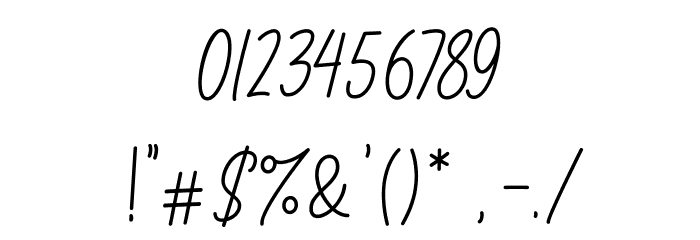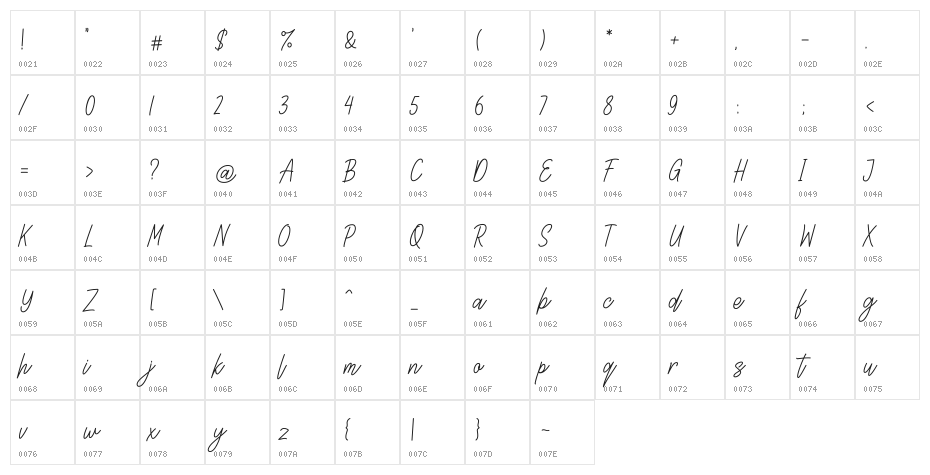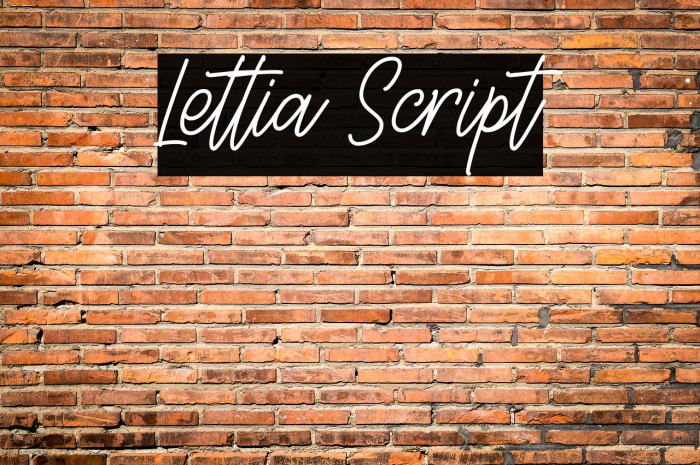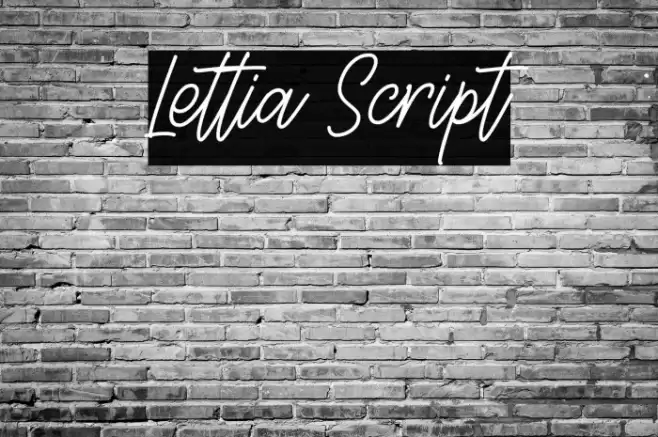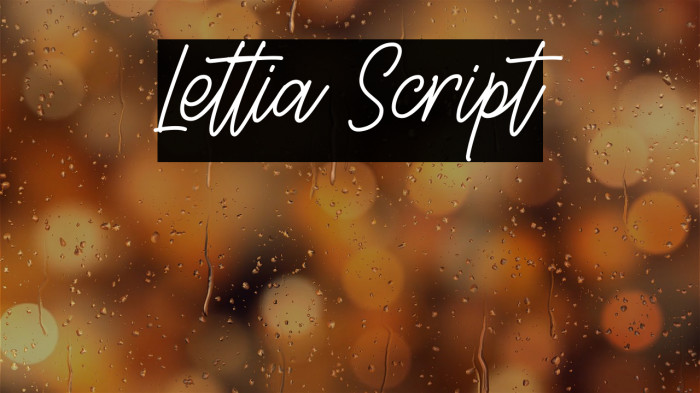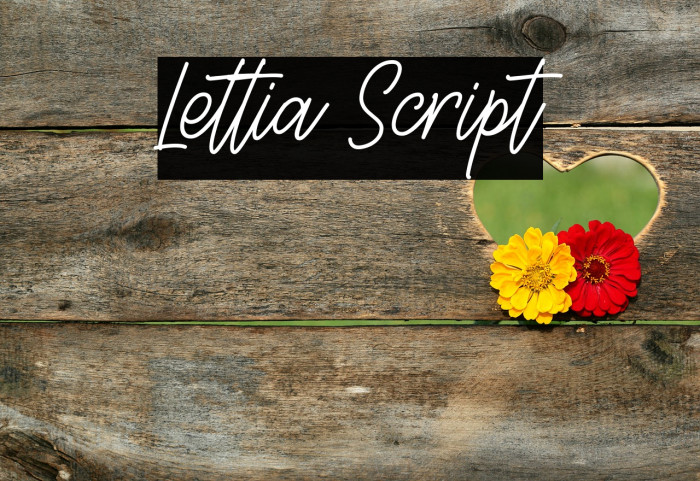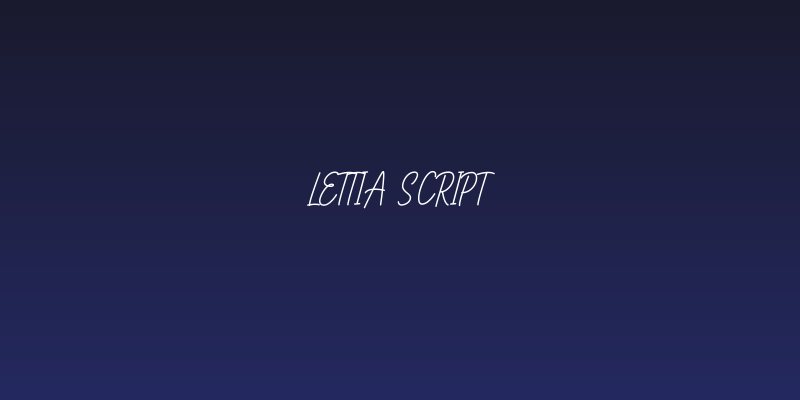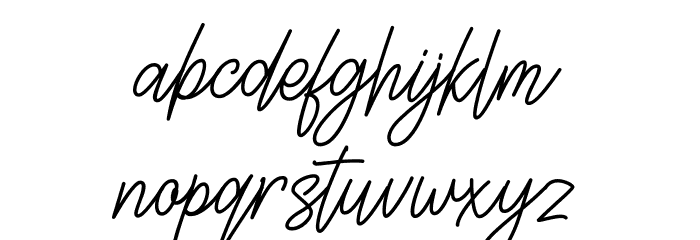
Lettia Script Font
Lettia Script Description
This font exudes a casual and elegant handwritten style, characterized by its fluid and connected letterforms. The uppercase letters are tall and slightly slanted, giving a sense of movement and grace. The lowercase letters maintain a consistent flow, enhancing readability while preserving the script's natural charm. Numbers and special characters are designed to match the overall aesthetic, providing a cohesive look across all elements. The strokes are smooth and continuous, with a medium contrast that adds to the font's legibility and appeal. This script font is versatile, suitable for a variety of design projects that require a personal and artistic touch.
| Overall Style | Elegant, Casual |
| Use Case | Logos, Invitations, Social Media |
| Proposed Projects | Ideal for wedding invitations, greeting cards, branding, and social media graphics. |